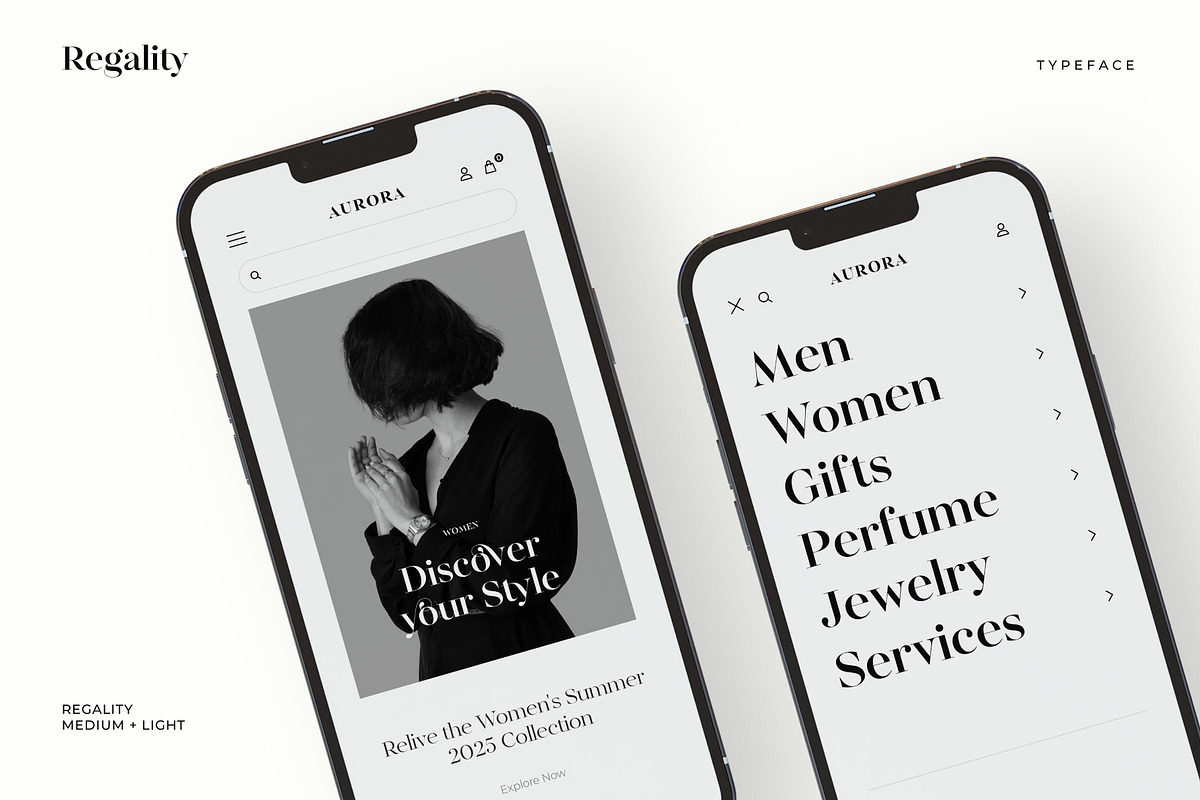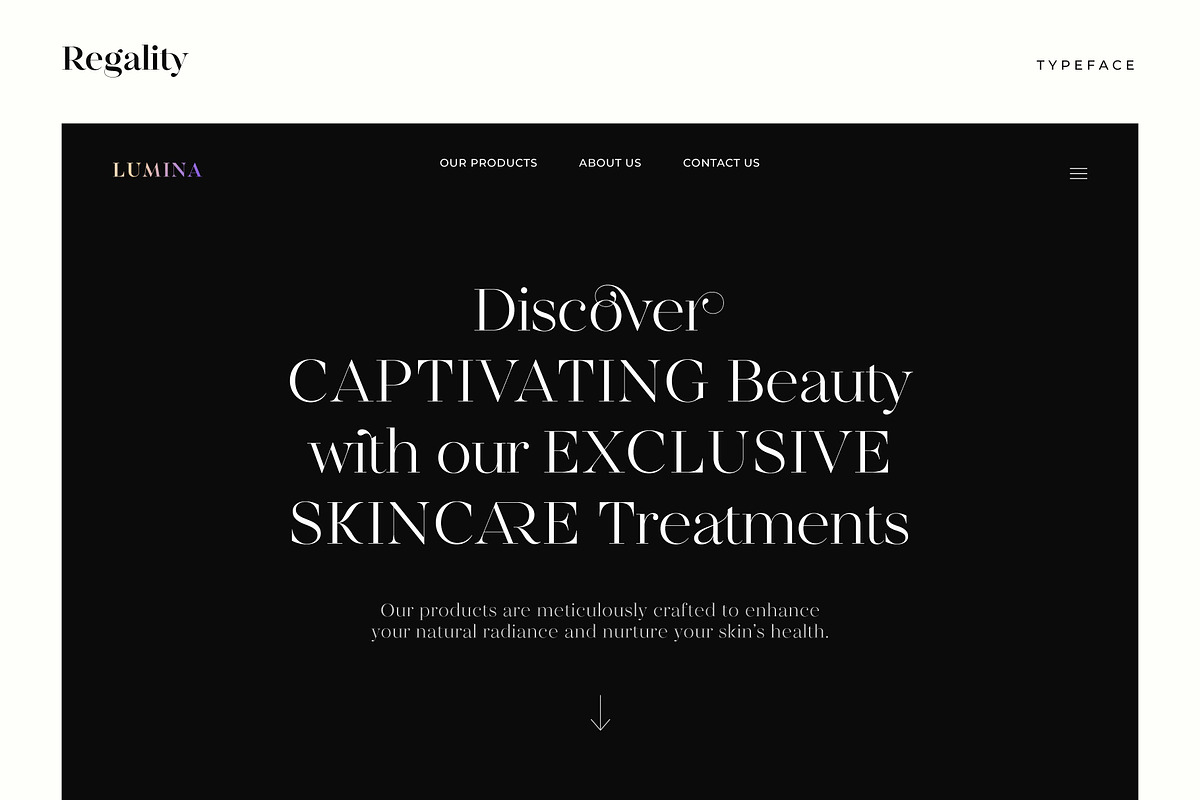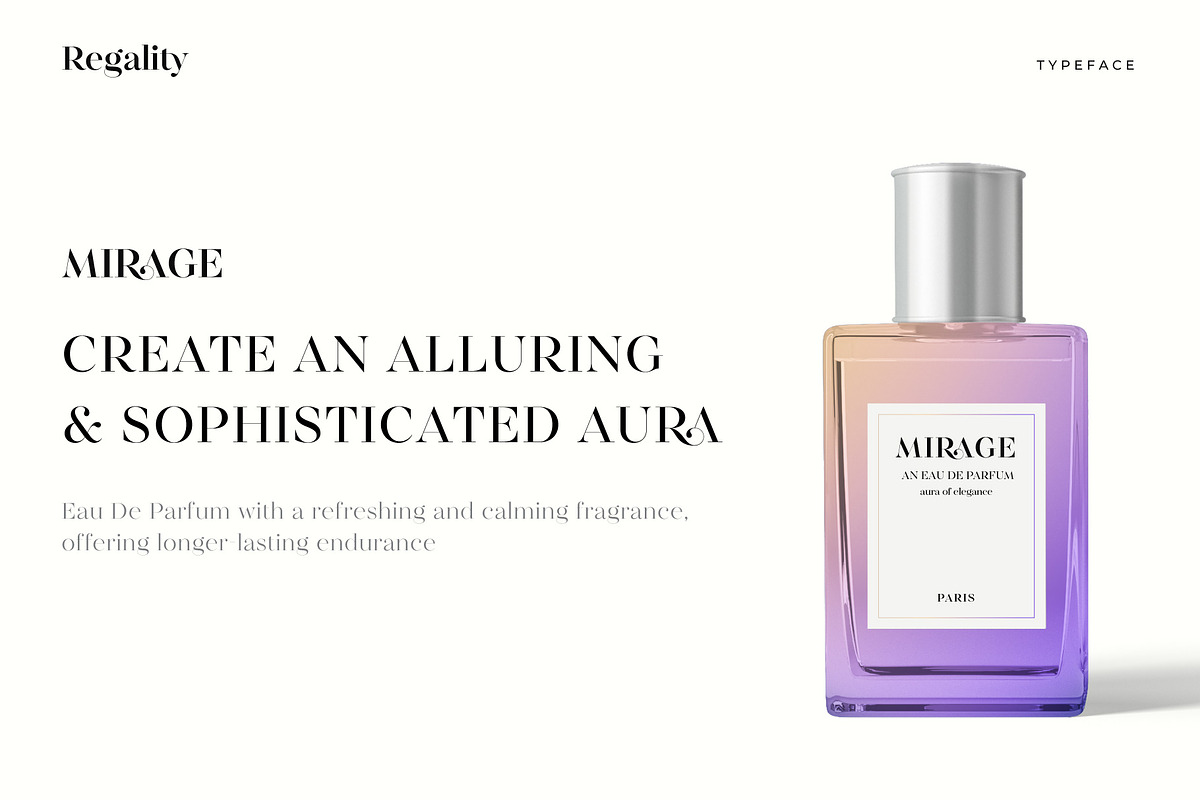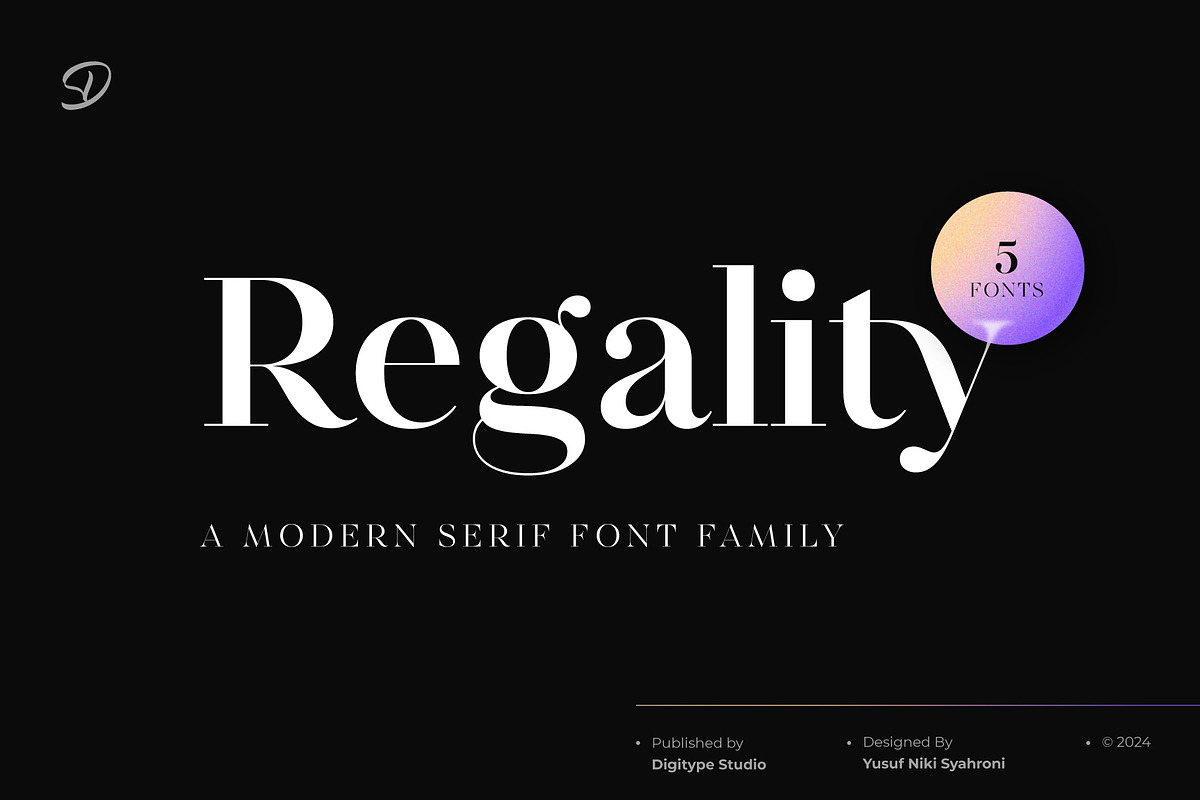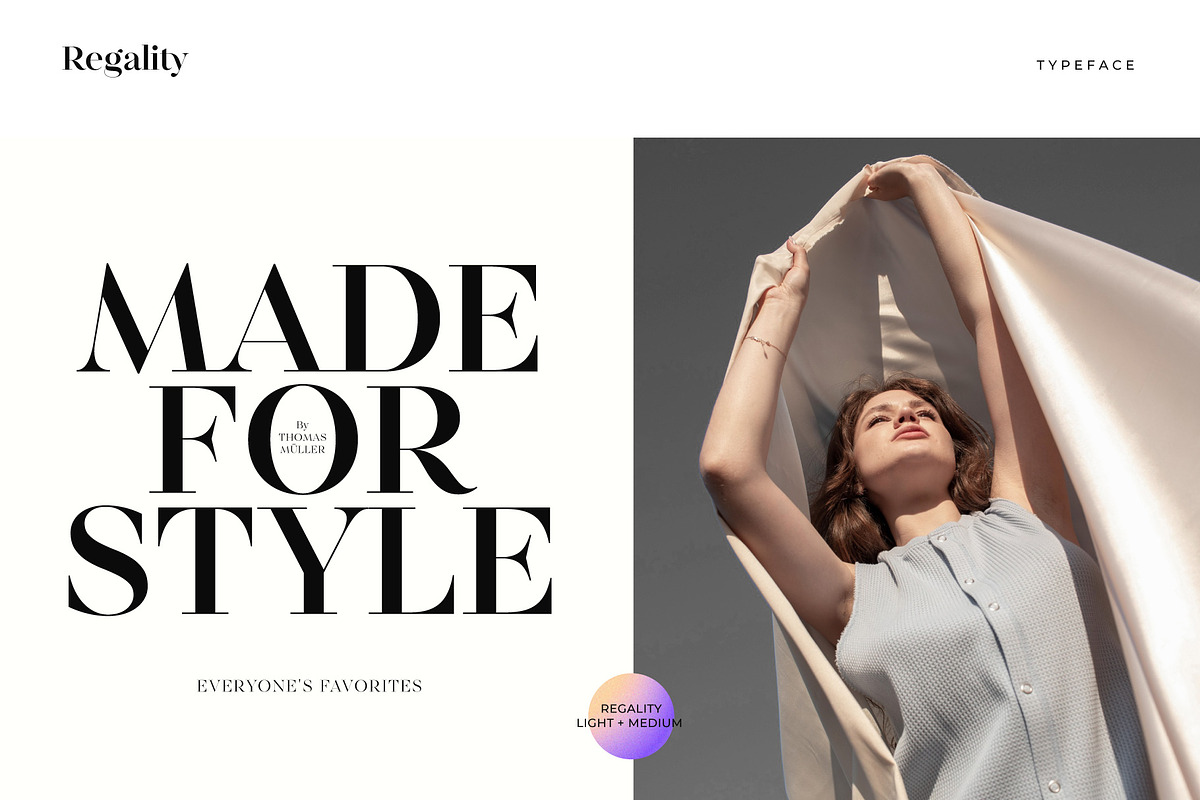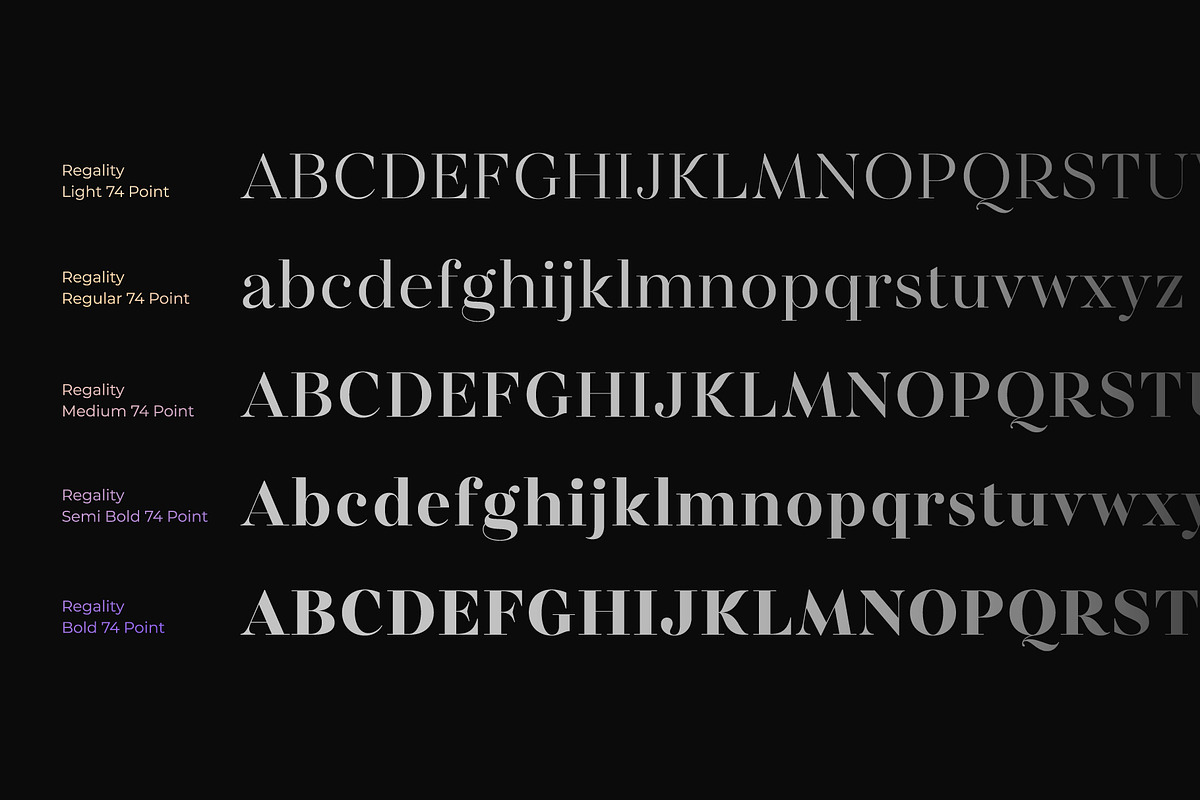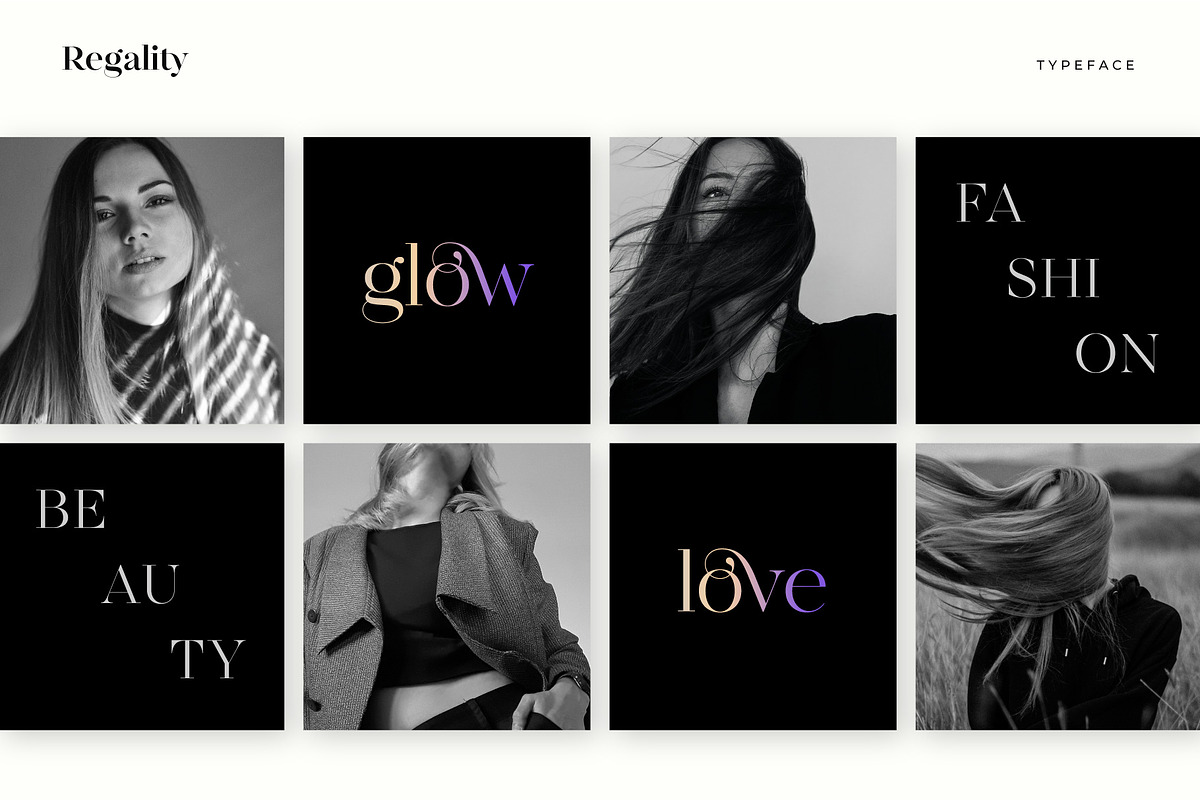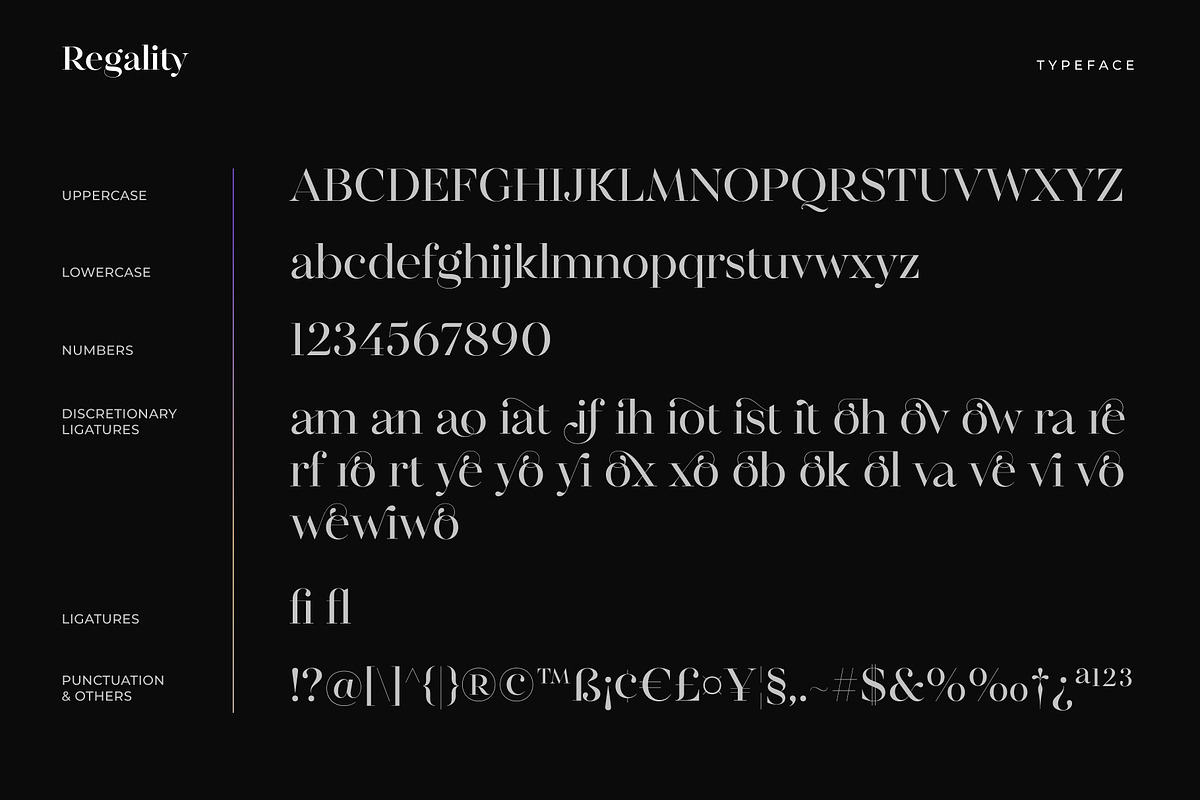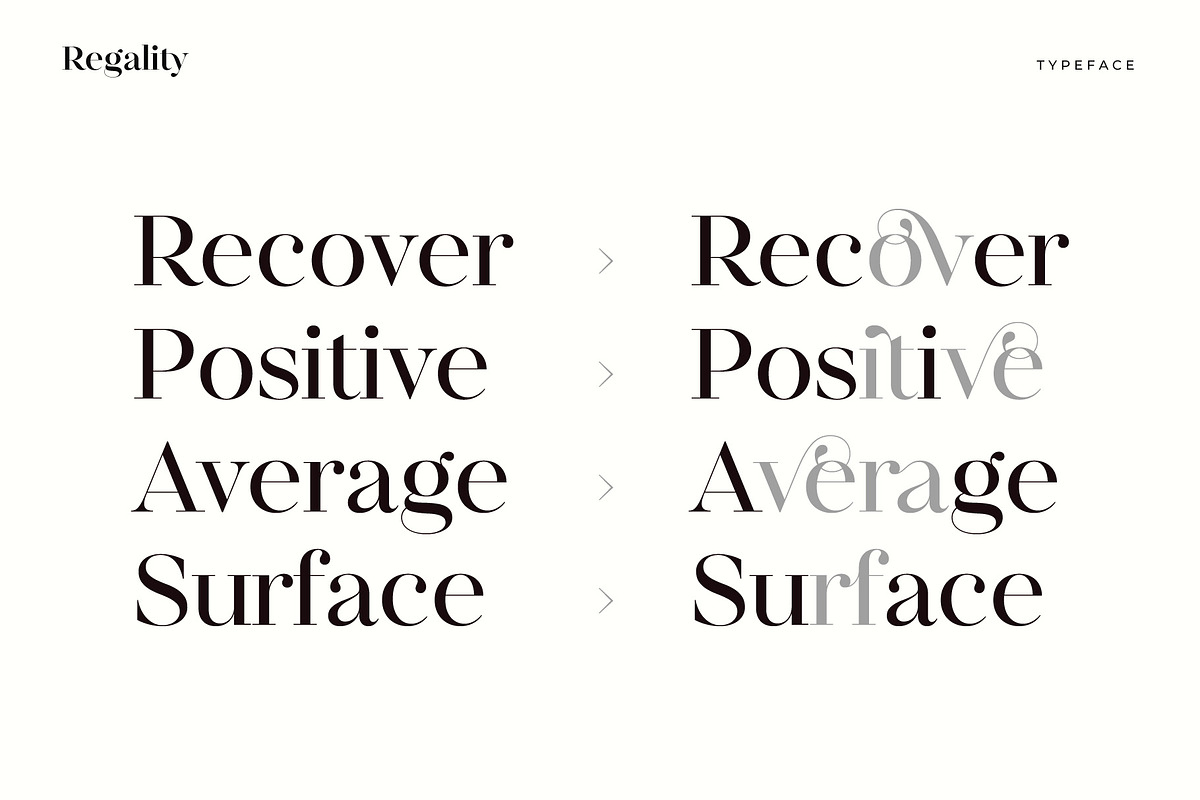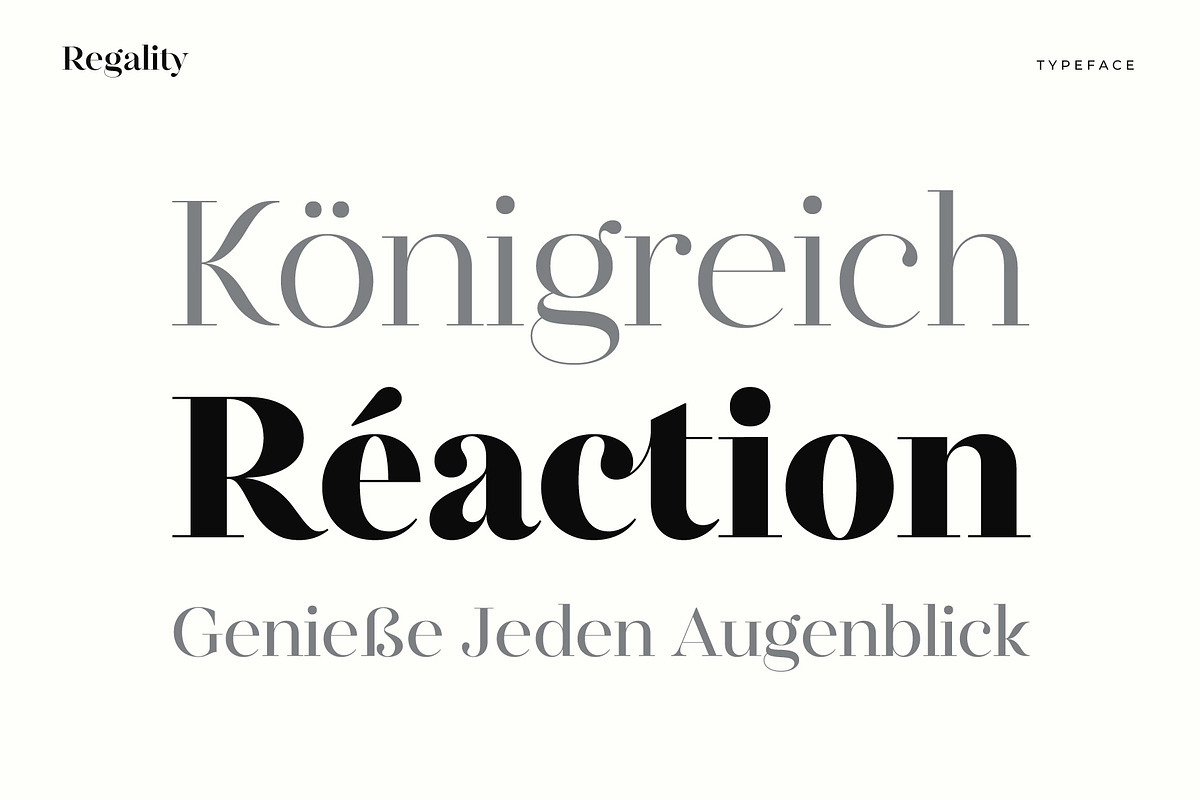
Regality - Classic and Elegant Serif
Font Regality showcases classic and elegant characteristics inspired by 18th-century typography. It features sharp contrast between thick and thin strokes, strong vertical lines, and clean, flowing serifs. Ideal for editorial design, branding, and projects requiring a luxurious and prestigious touch, Regality adds a modern twist to classic elegance. With its graceful and professional appearance, Regality ensures that text stands out and remains easily readable while imparting an exclusive and sophisticated impression.